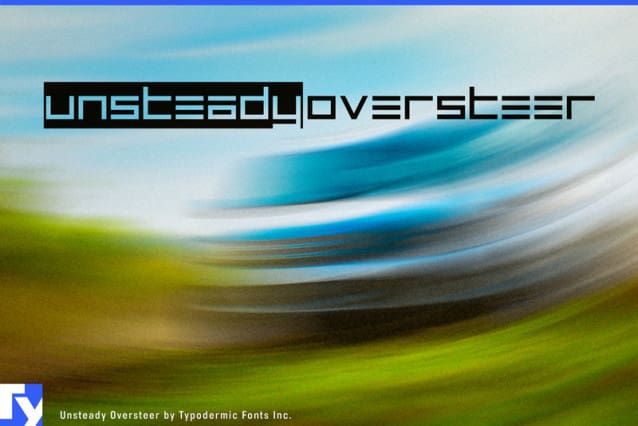
Unsteady Oversteer Font
Unsteady Oversteer Font is an inverse lowercase geometric techno typeface. Its austere digital letterforms and crisp geometry will give your message a distinctive elegance and technological optimism. Most Latin-based European writing systems are supported, including the following languages.